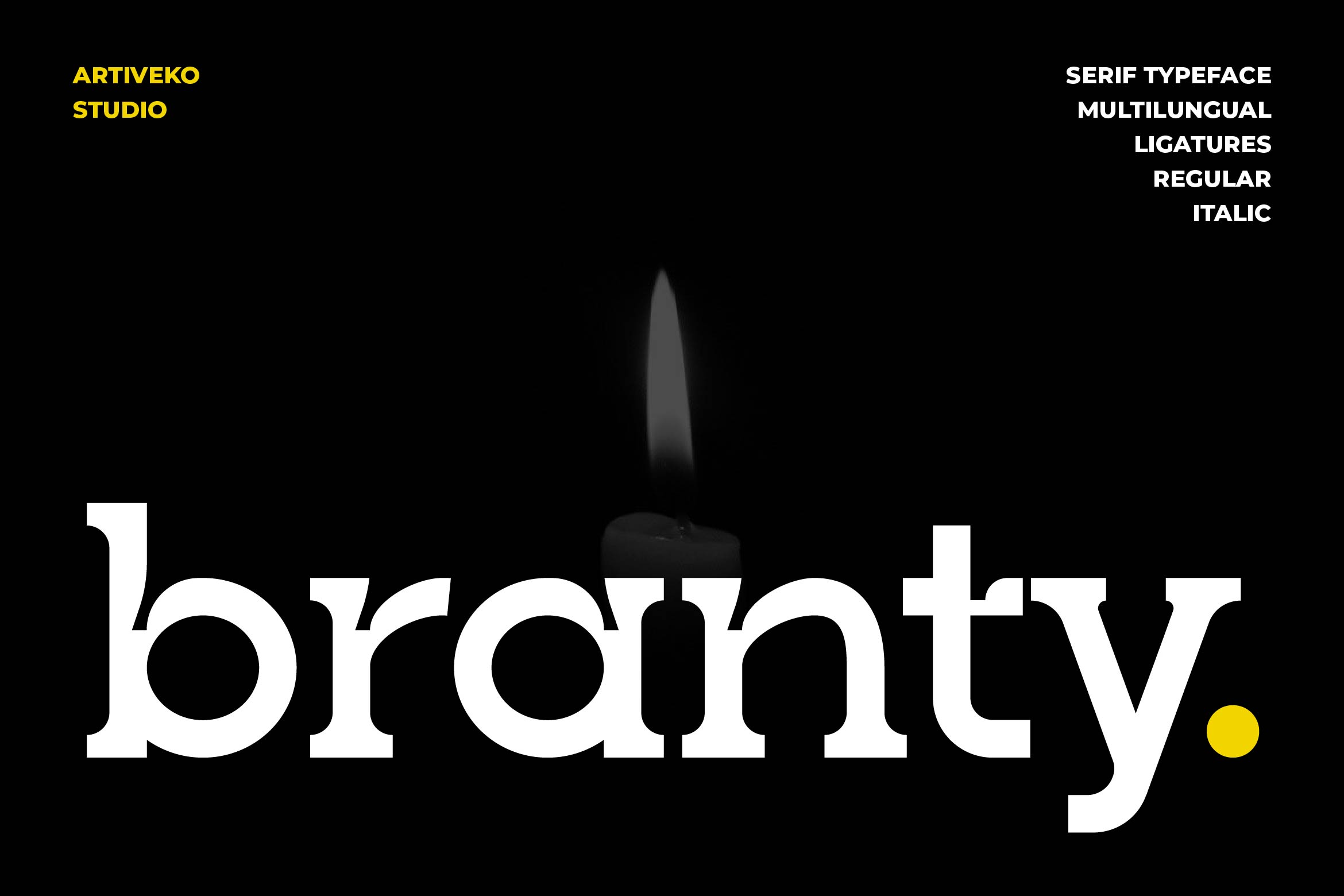
- Branty Modern Serif Font
Branty is a refined serif font designed to blend classic charm with a contemporary edge. Featuring clean lines, high-contrast strokes, and stylish serifs, Branty is perfect for modern branding, editorial layouts, magazine covers, wedding invitations, luxury packaging, and premium logo designs.
Its well-balanced structure ensures excellent readability while adding a touch of elegance and authority to your designs. Ideal for high-end projects in fashion, beauty, lifestyle, and corporate branding, Branty delivers a timeless and professional aesthetic that stands out in both print and digital formats.
The font includes uppercase and lowercase letters, numerals, punctuation, multilingual support, ligatures, and stylistic alternates to give you full creative control over your typography.
Elevate your designs with Branty — the modern serif font that defines sophistication, clarity, and contemporary luxury.